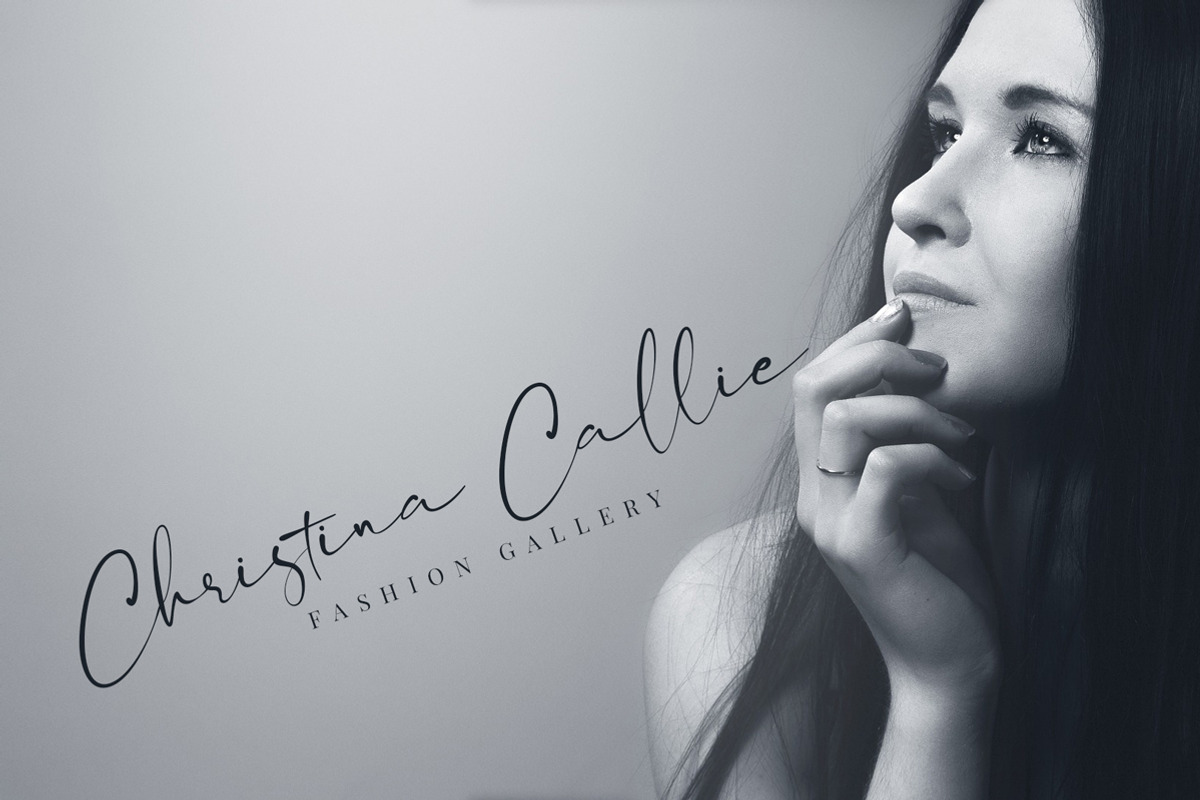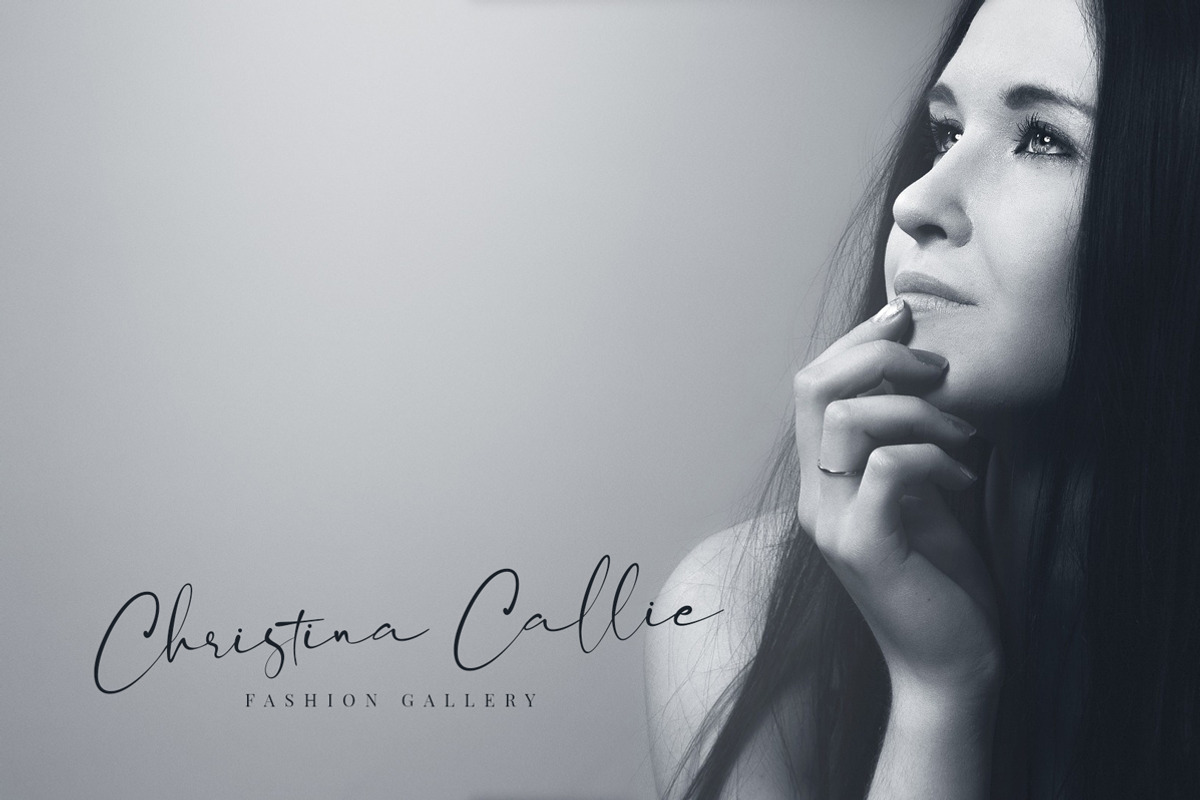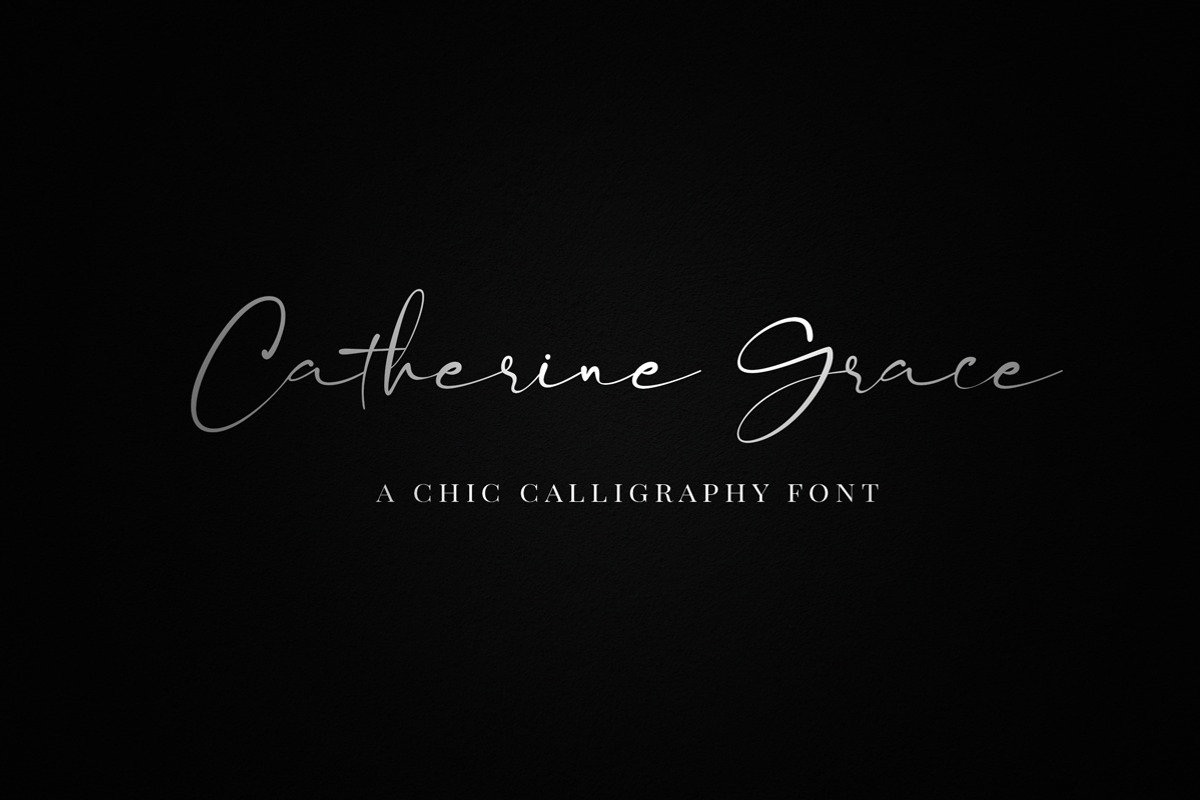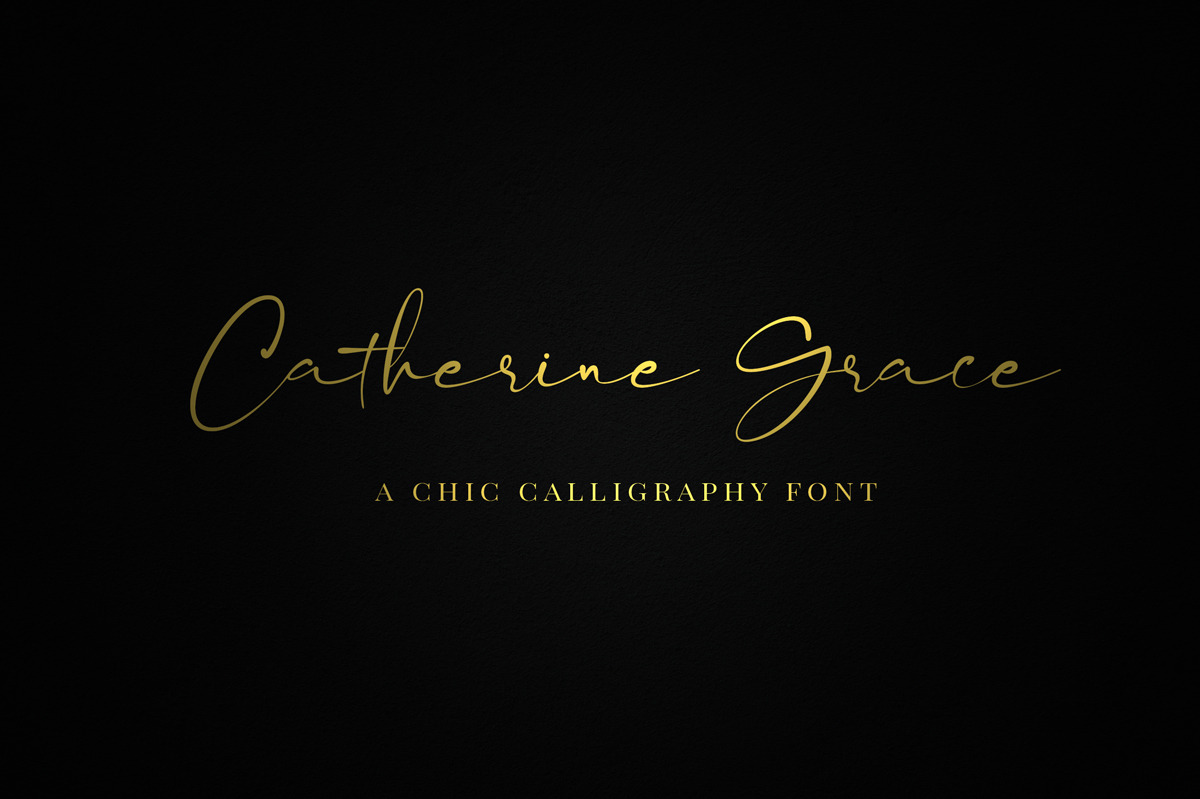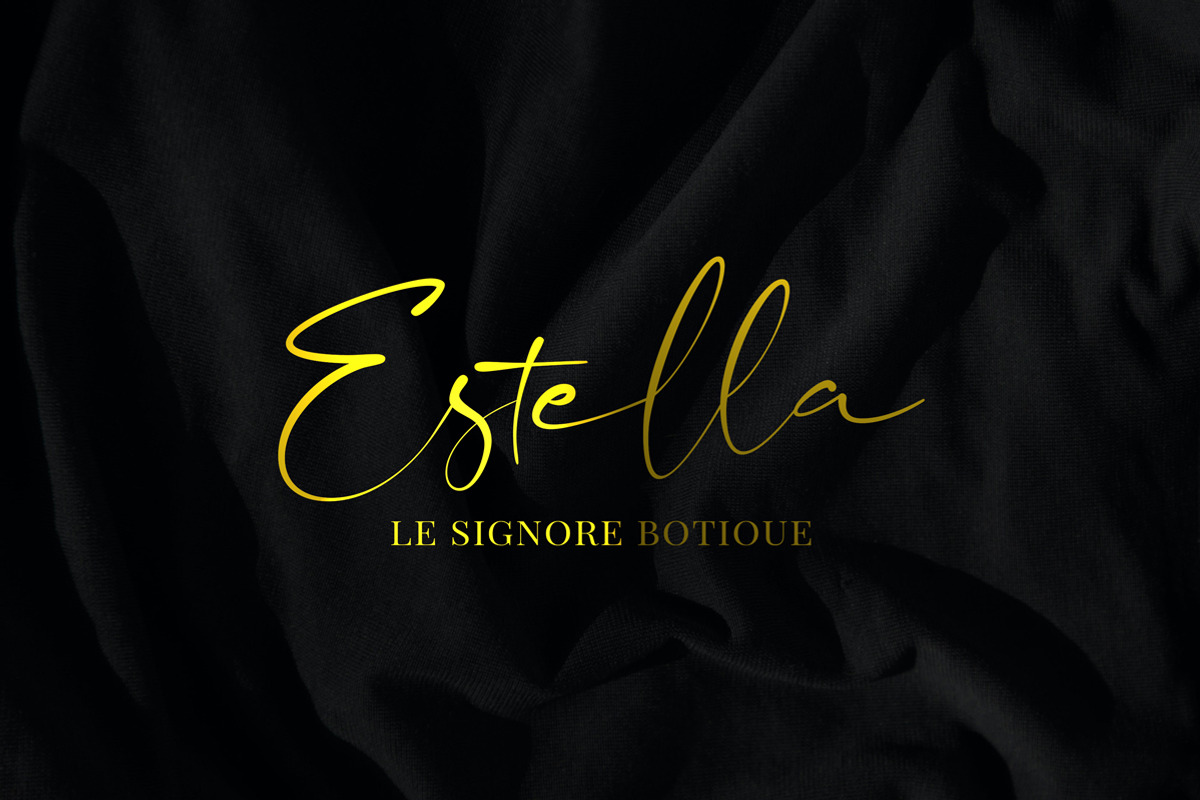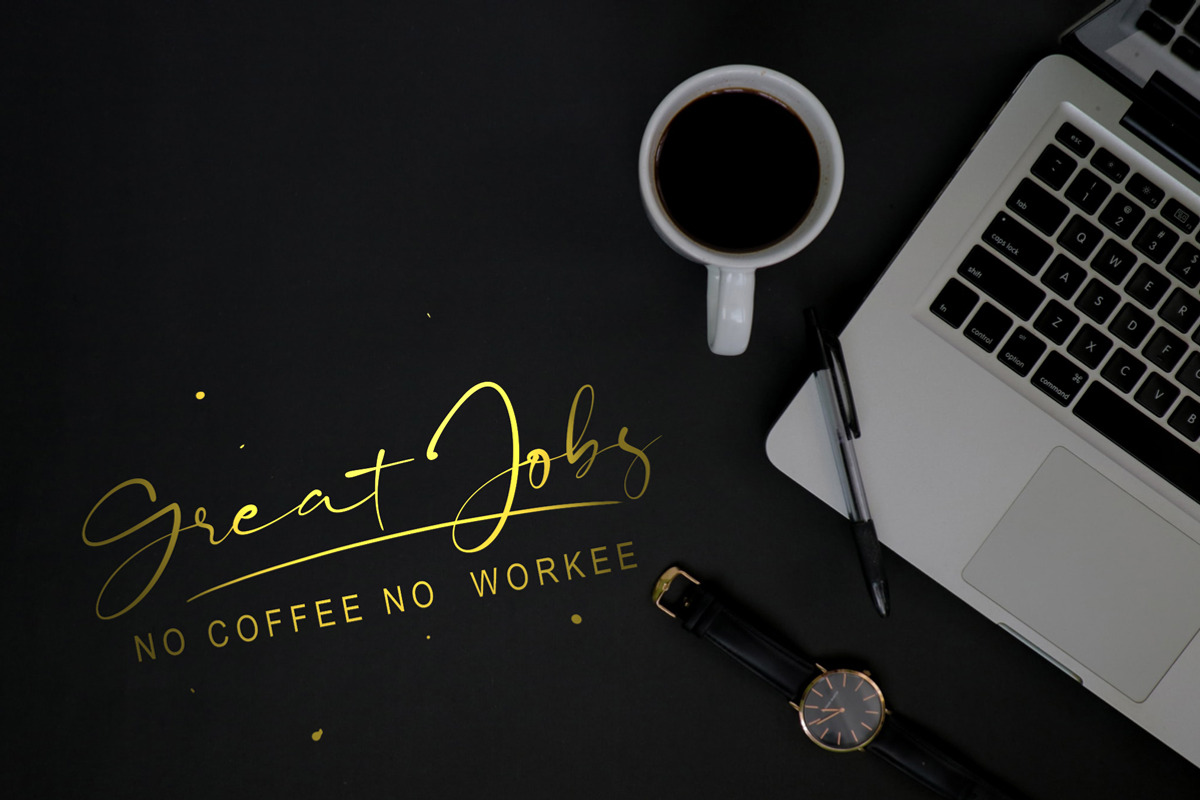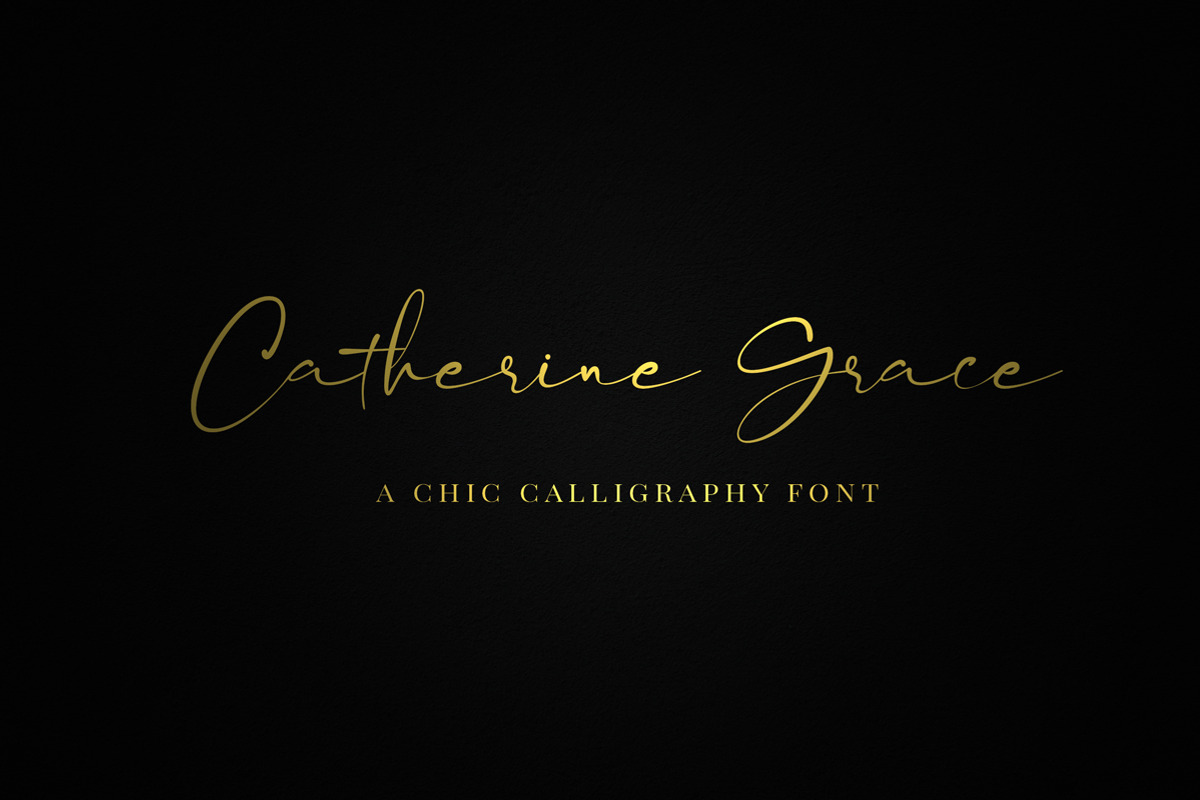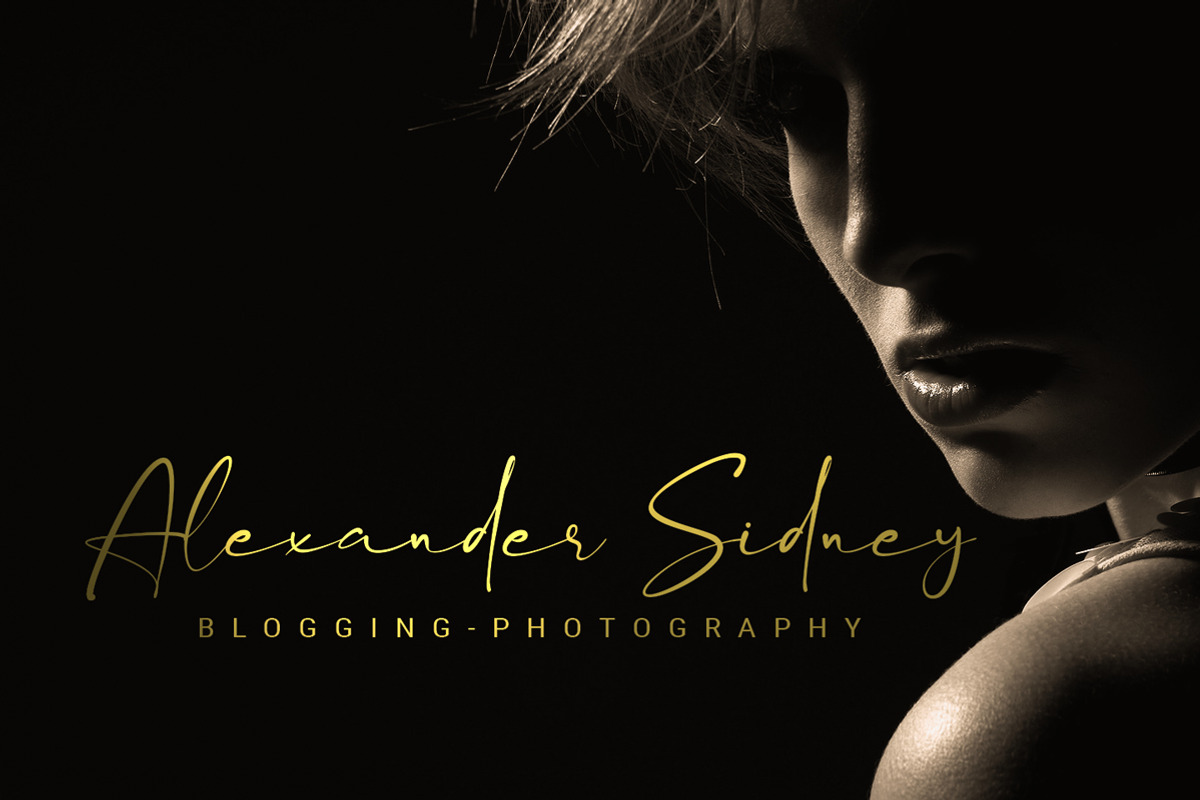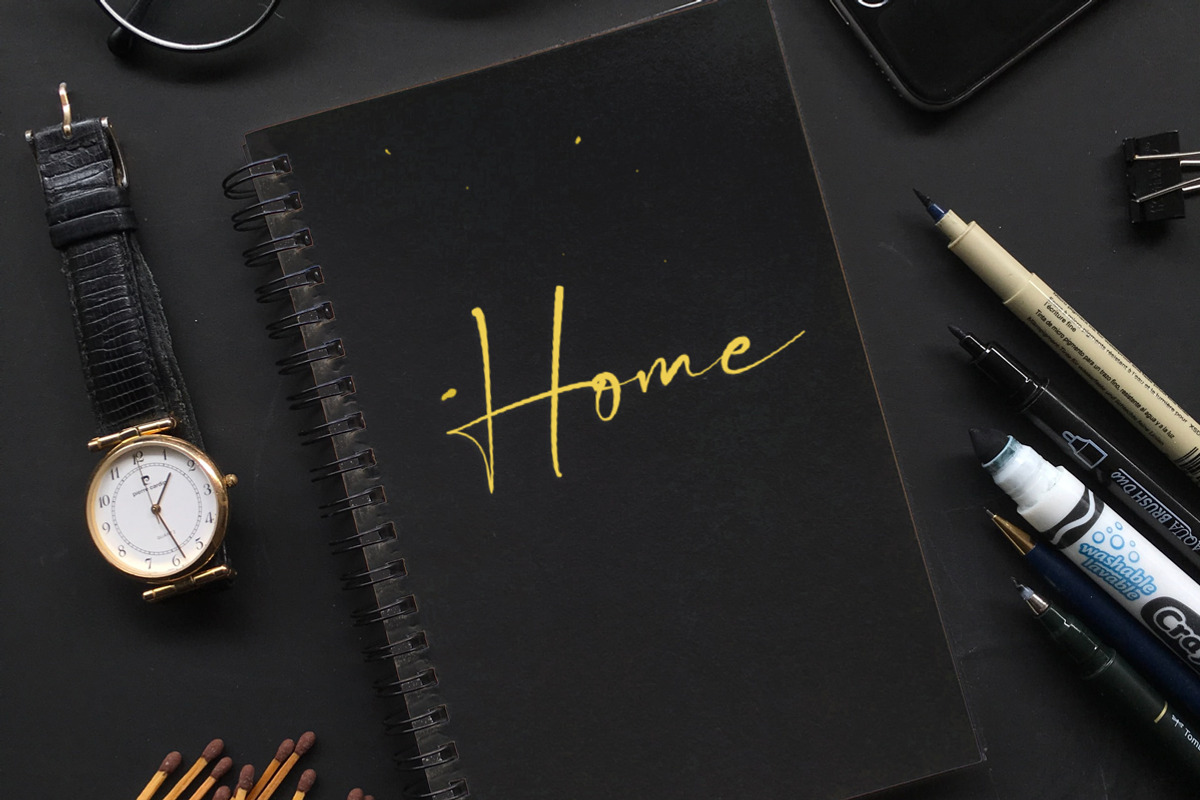
Catherine Grace - Script Font
Catherine Grace is a lovely and timeless handwritten font. It is the best choice for creating eye catching logos, branding and quotes. Every letter has a unique and beautiful touch, which will make your design come alive!
This gorgeous font includes all lowercase and uppercase characters, numbers, punctuation, alternate ,an array of standard ligatures and a selection of international characters as well (please type in the preview below to see if I have what you need!)